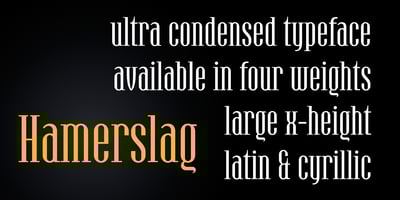
Hamerslag Font Family was designed by Paweł Burgiel and published by Paweł Burgiel. Hamerslag contains 4 styles and family package options. Hamerslag is an ultra-condensed serif type family with uncomplicated, regular appearance, large x-height, relatively high contrast and modern glyphs shapes. Available in four styles, contain fraction- and scientific numerals, standard ligatures, currency symbols, proportional and tabular lining figures. Its wide character set support 200 Latin-script languages, 50 Cyrillic-script languages and 190+ romanizations/transliterations, e.g. The United Nations romanizations, Chinese official romanization (Hanyu Pinyin), BGN/PCGN (United States Board on Geographic Names and the Permanent Committee on Geographical Names for British Official Use), American Library Association / Library of Congress romanizations and others. The OpenType PostScript CFF (.otf) and OpenType TrueType TTF (.ttf) support encodings: Windows 1250 Latin 2 (Eastern European), Windows 1251 Cyrillic, Windows 1252 Latin 1 (ANSI), Windows 1254 Turkish, Windows 1257 Baltic, ISO 8859-1 Latin 1 (Western), ISO 8859-2 Latin 2 (Central Europe), ISO 8859-3 Latin 3 (Turkish, Maltese, Esperanto), ISO 8859-4 Latin 4 (Baltic), ISO 8859-5 Cyrillic, ISO 8859-9 Latin 5 (Turkish), ISO 8859-10 Latin 6 (Scandinavian), ISO 8859-13 Latin 7 (Baltic 2), ISO 8859-14 Latin 8 (Celtic), ISO 8859-15 Latin 9, ISO 8859-16 Latin 10, Macintosh Character Set (US Roman). Supported OpenType features: Acces All Alternates, Capital Spacing, Case-Sensitive Forms, Denominators, Fractions, Glyph Composition/Decomposition, Historical Forms, Kerning, Localized Forms, Numerators, Ordinals, Proportional Figures, Scientific Inferiors, Slashed Zero, Standard Ligatures, Stylistic Alternates, Subscript, Superscript, Tabular Figures. Kerning is prepared as single (‘flat’) table for maximum possible compatibility with older software.